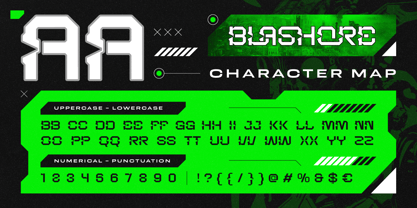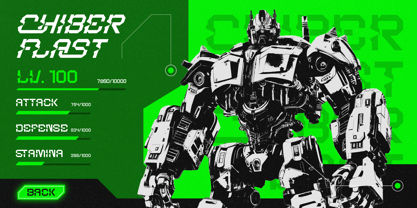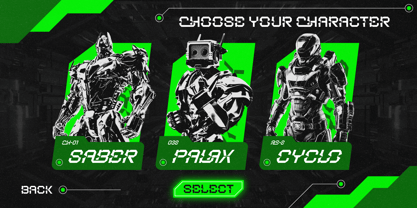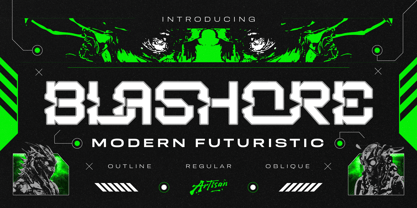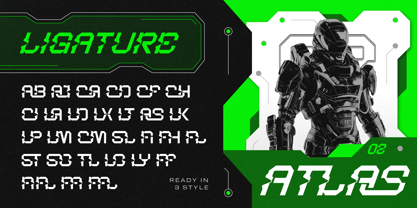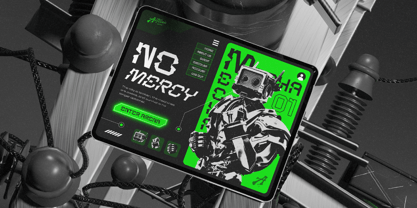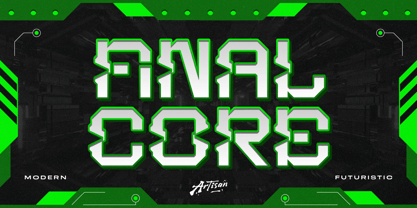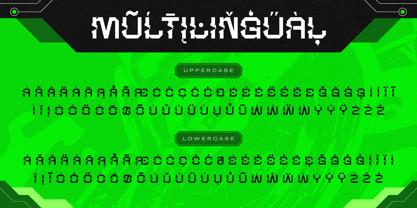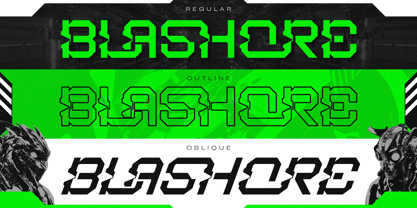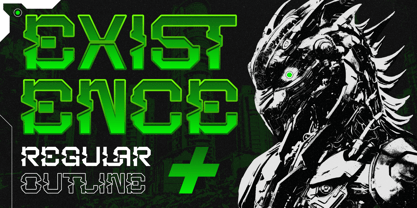
Blashore
La familia tipográfica Blashore fue diseñada por Meidy Meichico y publicada por Artisan Themes. Blashore contiene 3 estilos y opciones de paquete familiar. Más información sobre esta familia
Blashore is a modern futuristic display font built for bold, high-energy visuals. It features sharp angles, solid structure, and a strong tech vibe that instantly feels powerful and aggressive. Perfect for gaming UI, esports branding, cyberpunk posters, sci-fi designs, tech logos, futuristic headlines, and anything that needs a strong digital impact. Blashore comes with Regular, Outline, and Oblique styles, giving you flexibility to play with depth, motion, and contrast in your designs. Features: A - Z set (Uppercase & Lowercase All Caps), number, punctuation, ligatures, multilingual